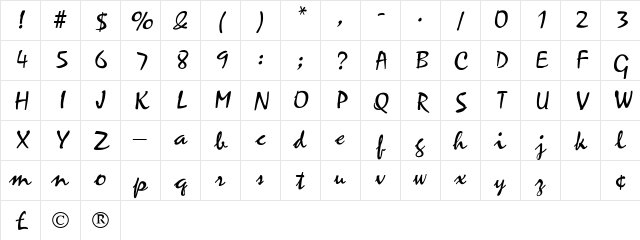
Borealis Regular Free Font
Borealis Regular
Design Context for Borealis
Borealis is a composed and adaptable typeface that performs quietly and consistently across a wide range of design contexts.